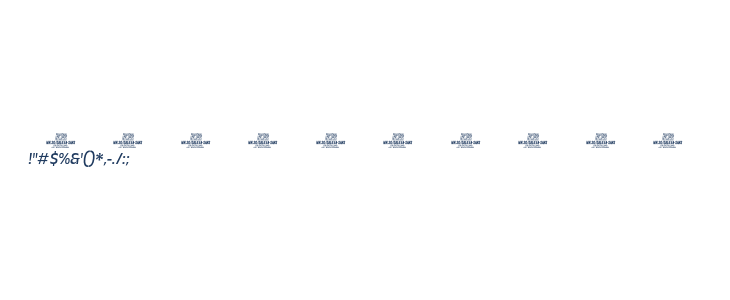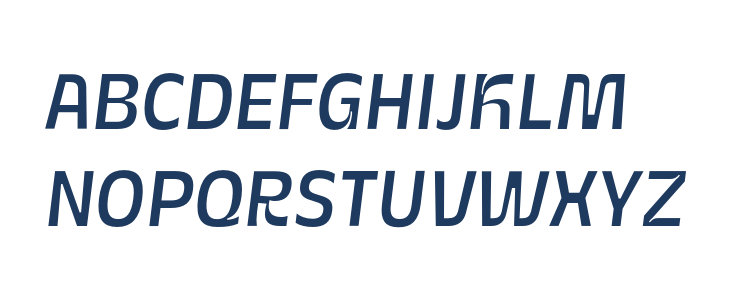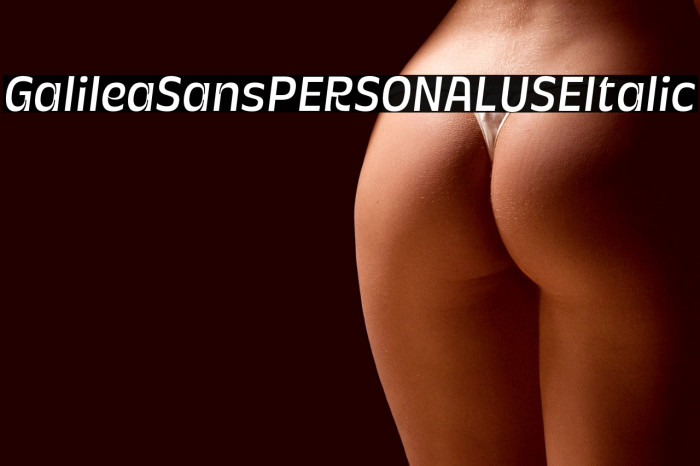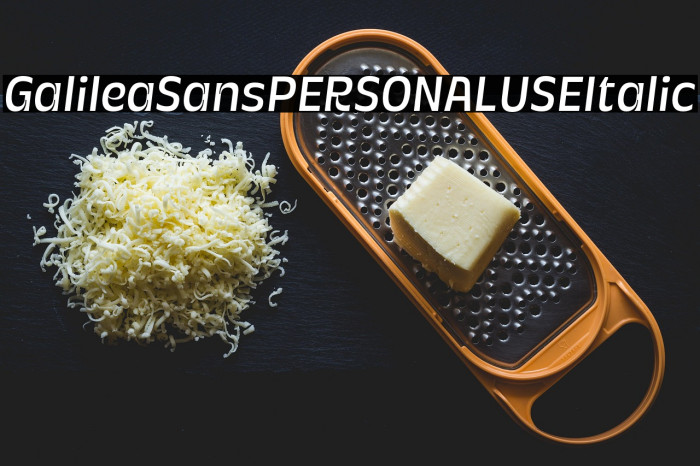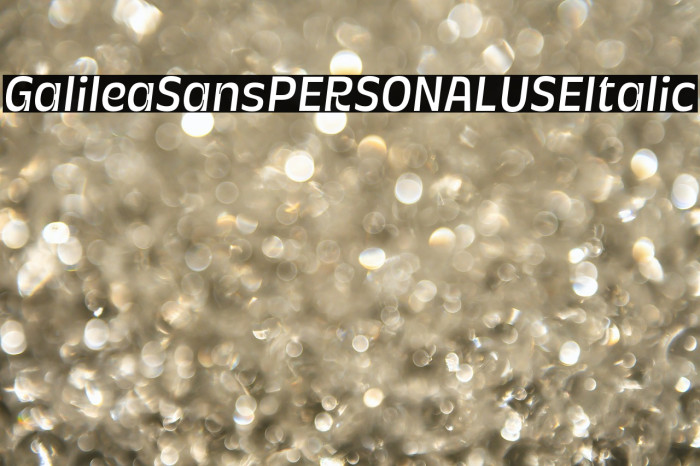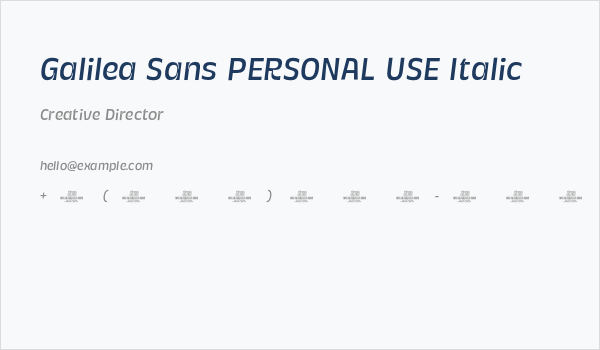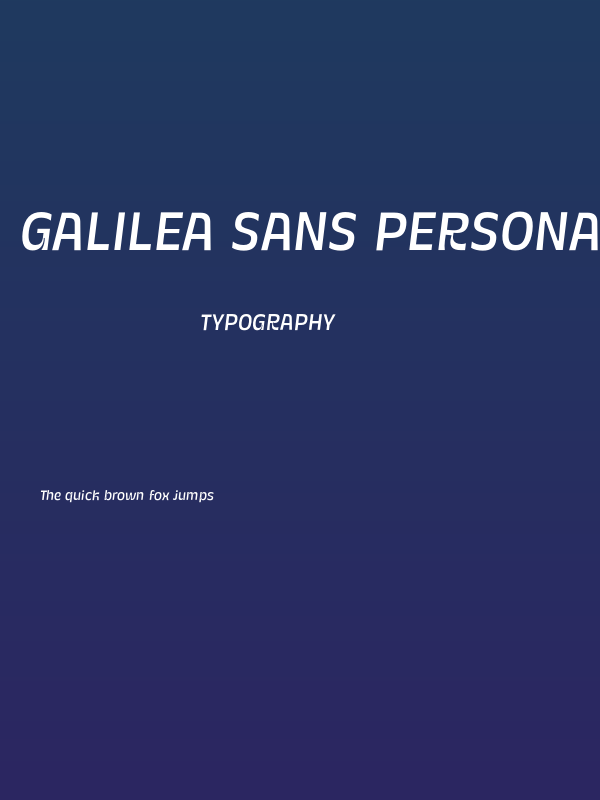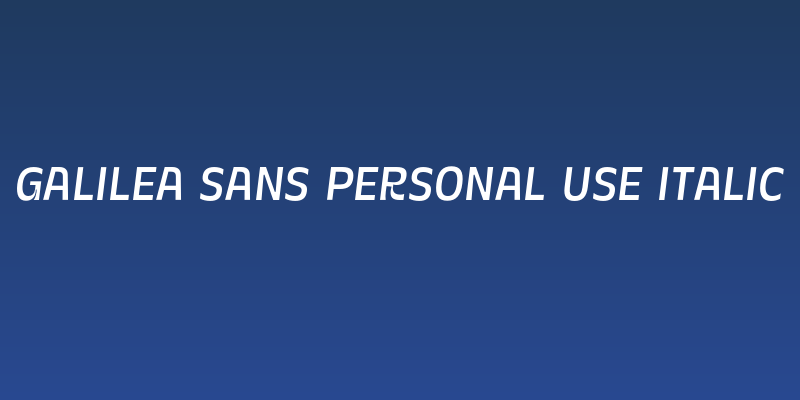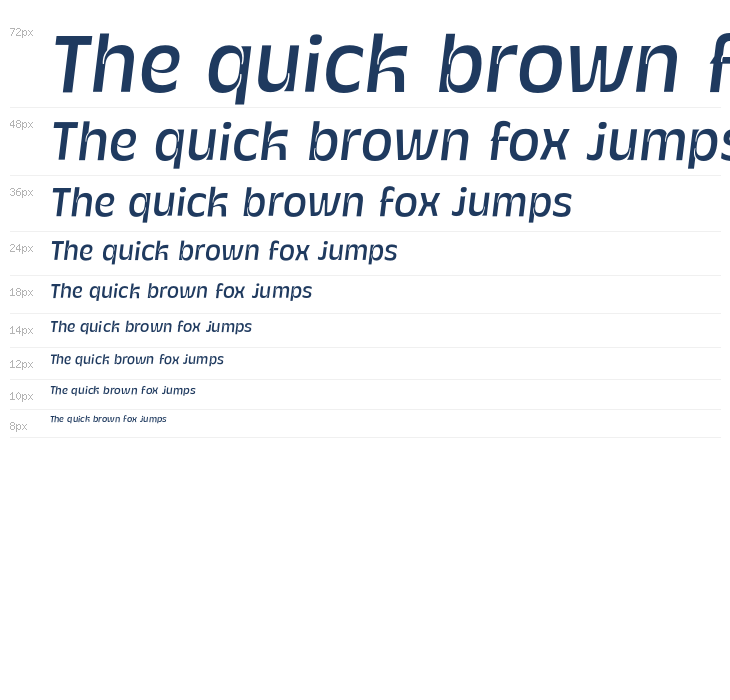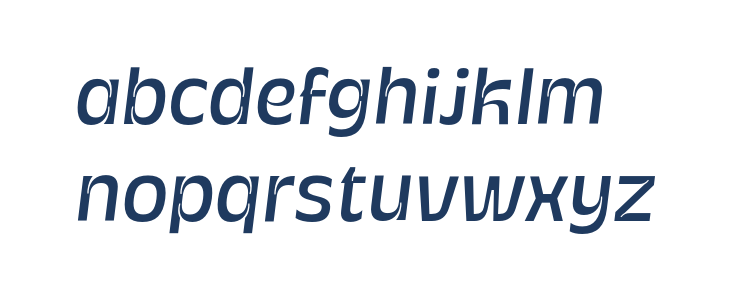
Galilea Sans PERSONAL USE Italic Font
Galilea Sans PERSONAL USE Italic Description
A modern, italic sans-serif font with a slightly condensed appearance and a dynamic, forward-leaning style.
| Overall Style | Modern, Dynamic |